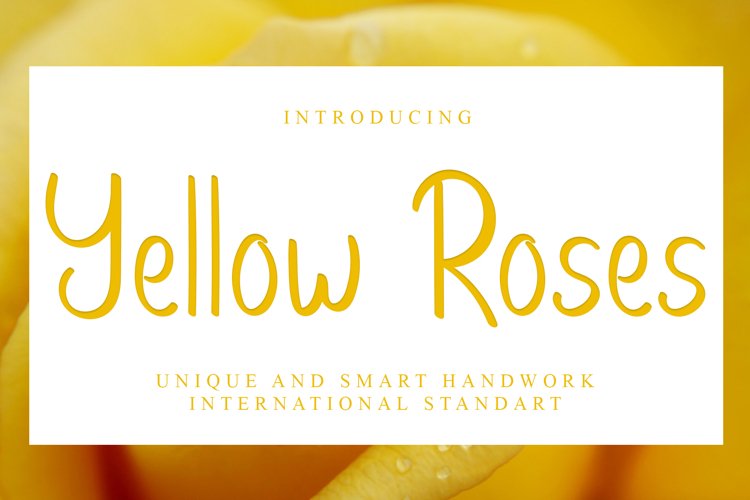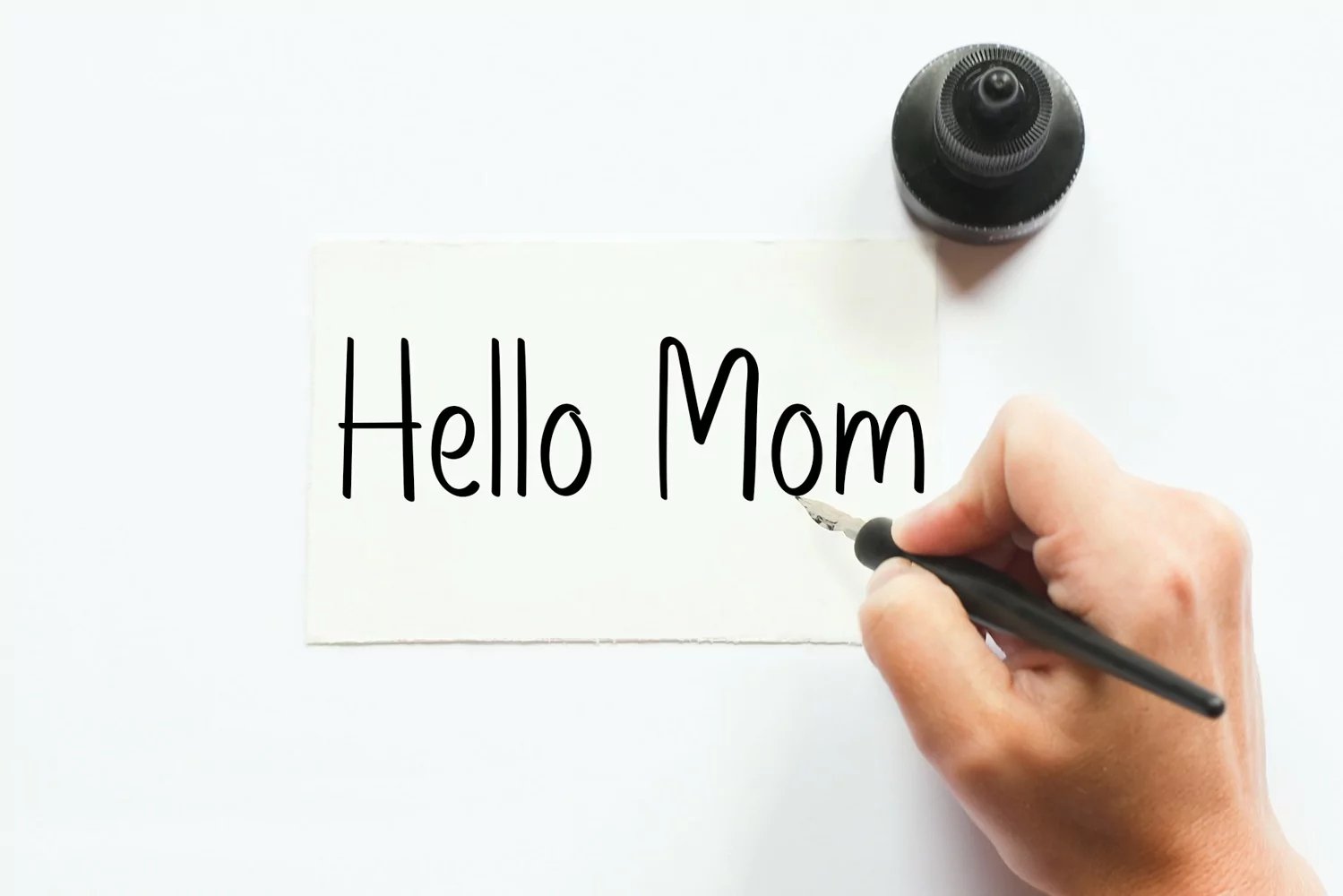
Yellow Roses
Introducing, this is our newest product, we call this product Yellow Roses,
It looks amazing with sweet touches and beautiful curves in each letter. Yellow Roses fonts are perfect for: wedding invitations, fashion magazines, logos, signatures, photography, watermarks, wall displays, social media,